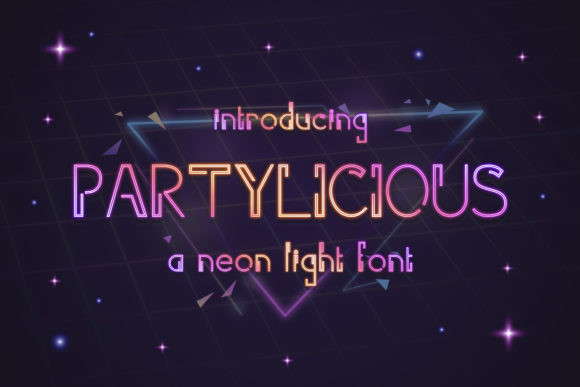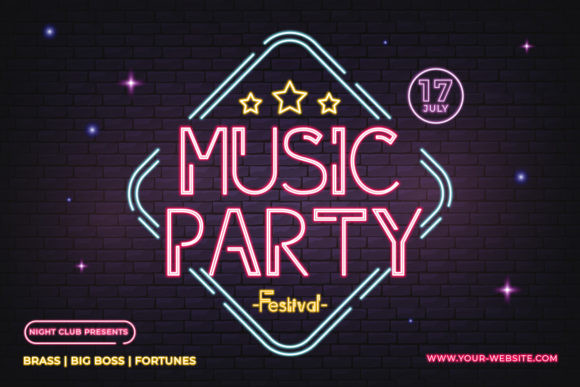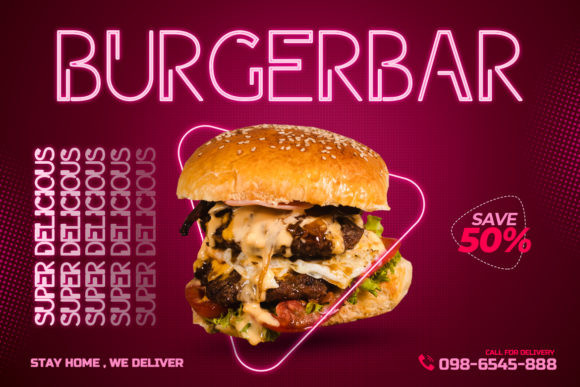
Partilicious Font
Partylicious is a modern display font with a futuristic feel. This font is suitable for a wide variety of projects such as branding, quotes, titles and much more.